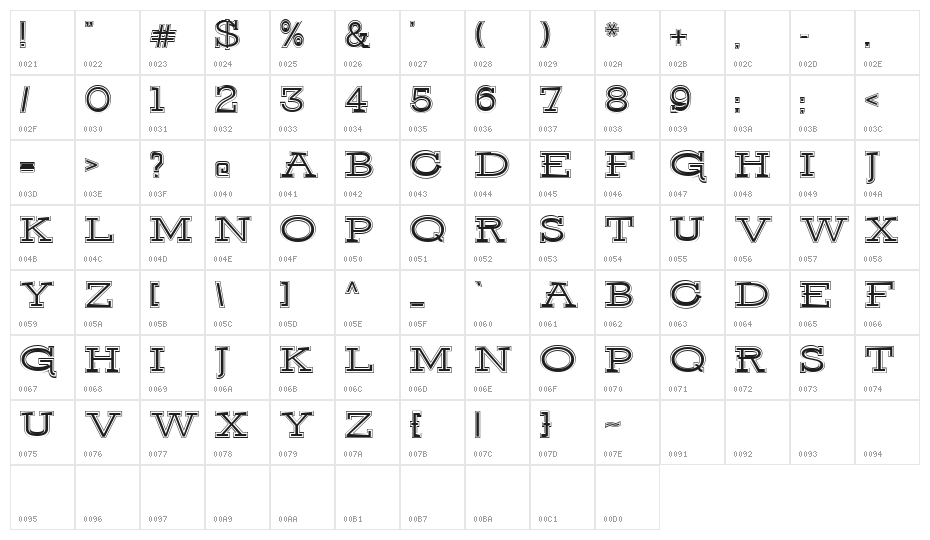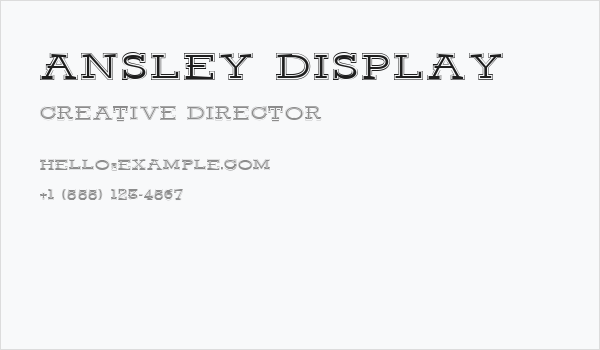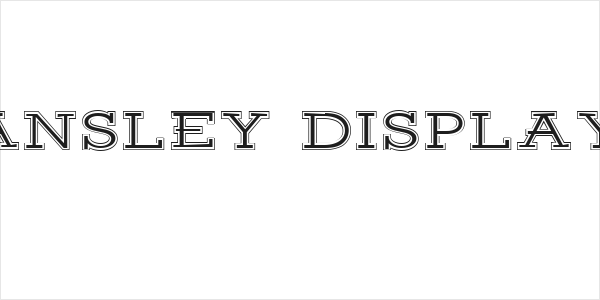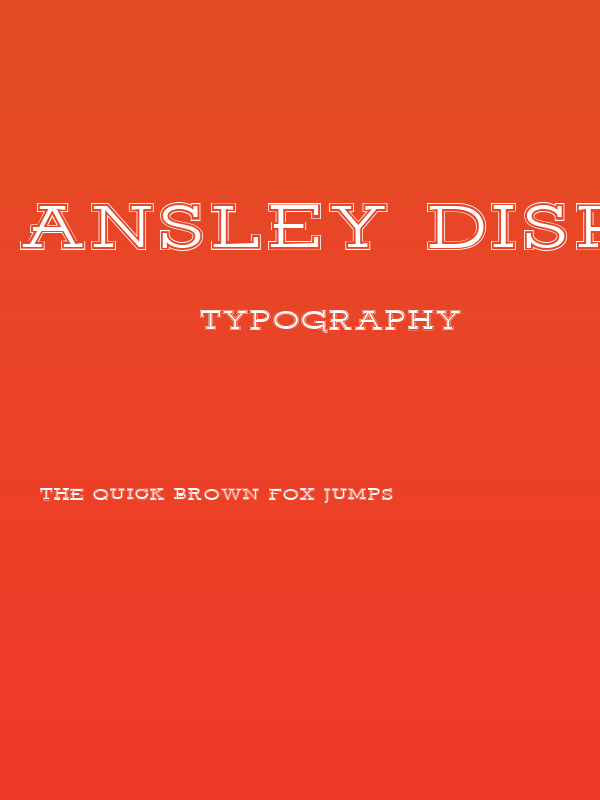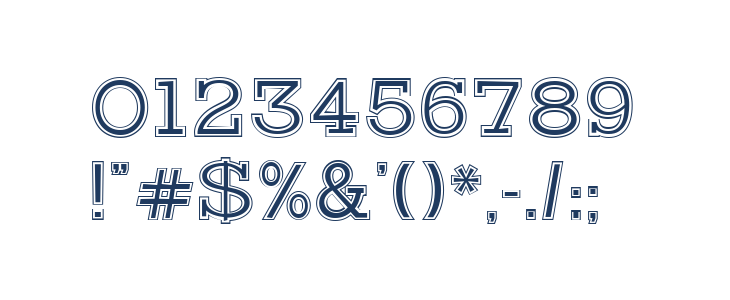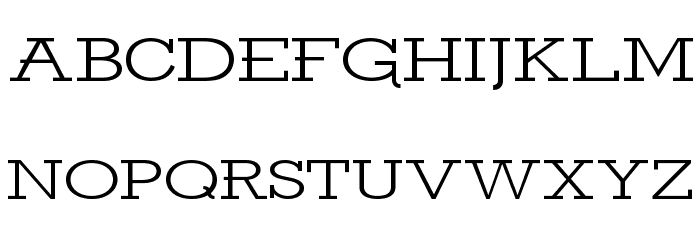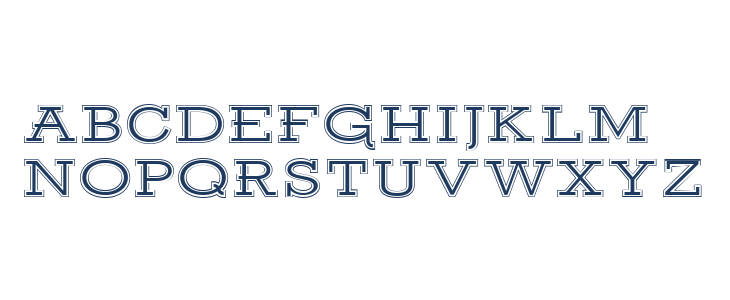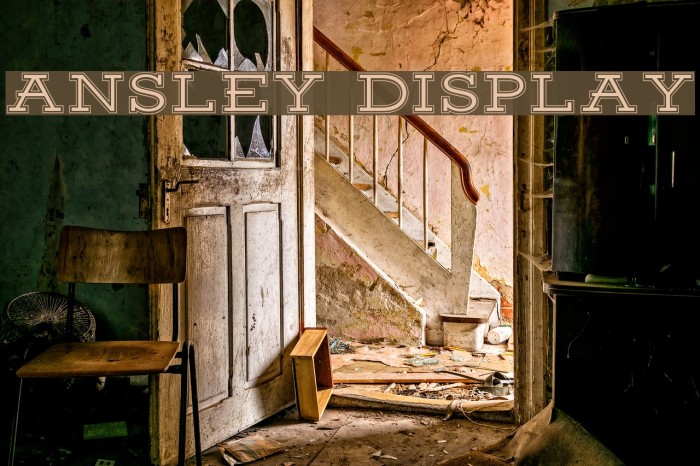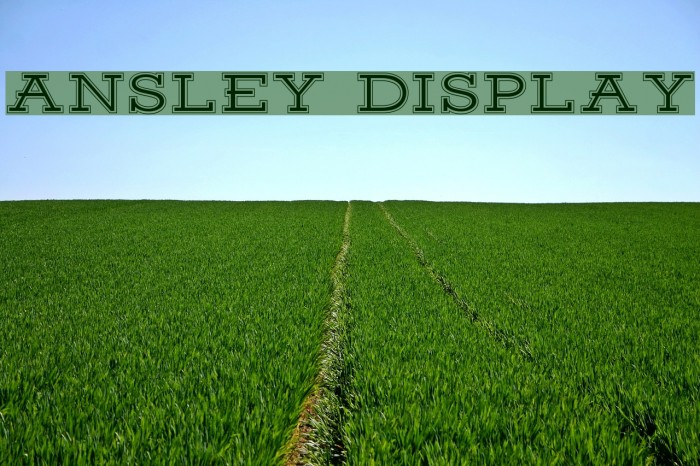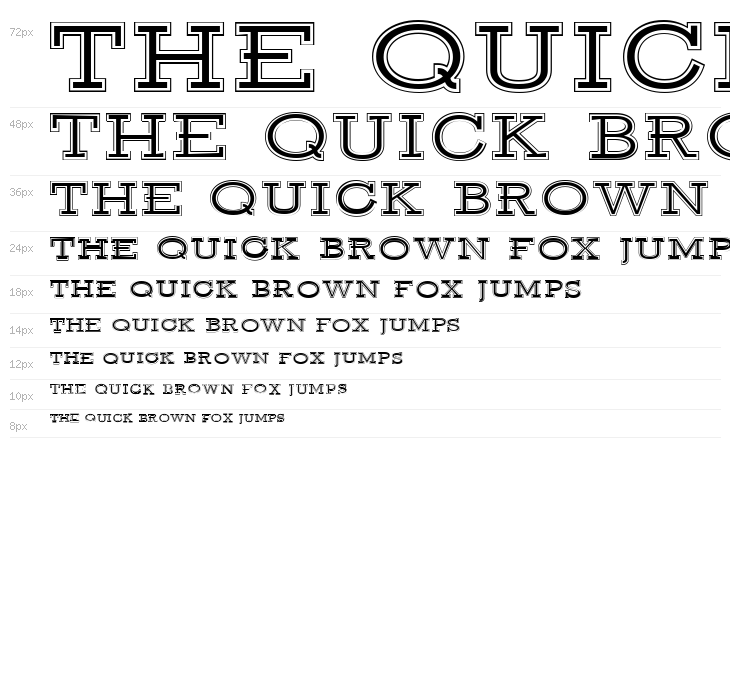
Ansley Display Font
Ansley Display Description
This font features a bold, decorative style with a double-line outline that gives it a dimensional effect. The characters are uppercase and numerals, with a consistent geometric structure that adds a modern flair. The design is clean and sharp, with a slight vintage touch due to its outlined nature. The spacing between characters is normal, allowing for readability while maintaining its decorative appeal. The font's unique style makes it suitable for eye-catching designs where a bold statement is needed.
| Overall Style | Modern, Vintage |
| Proposed Projects | Ideal for posters, headlines, logos, and branding materials that require a strong visual impact. |